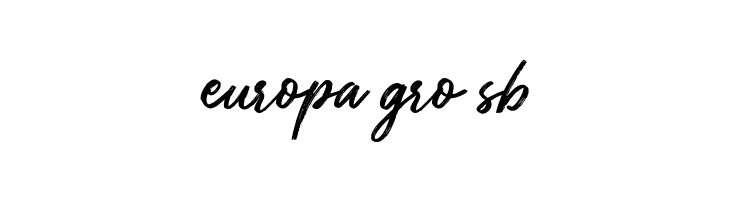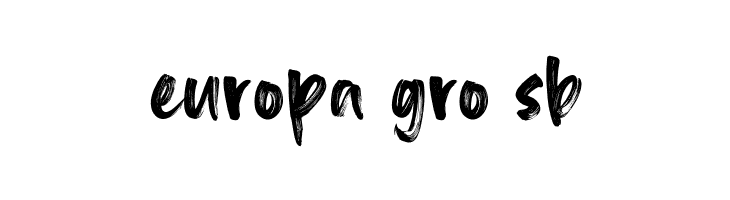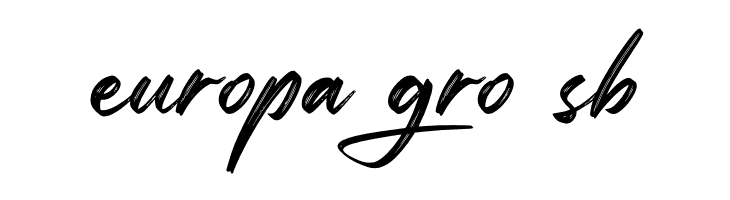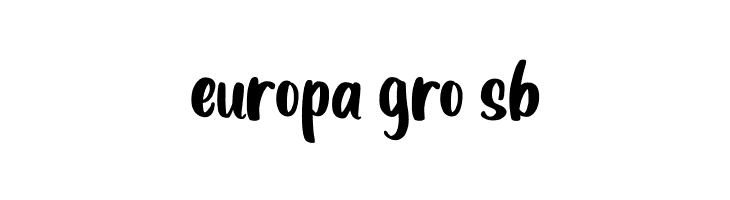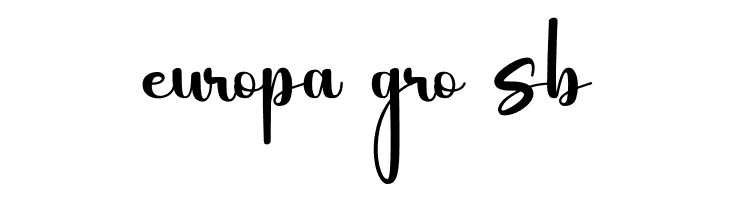
( Måns Grebäck - www.mansgreback.com )
A tall, slender script font with a modern, handwritten style.
( Måns Grebäck - www.mansgreback.com )
A dynamic handwritten font with elongated, slanted characters.
( Qkila - Quentin Aquila - www.creativefabrica.com/designer/qkila/ )
A playful, casual script font with smooth, flowing curves and a handwritten feel.
( StudioAKTYPE - Jani Nurman - www.creativefabrica.com/designer/studioaktype/ )
An elegant, flowing script font with ornate, cursive letterforms.
( Tama Putra - be.net/tmptr )
An elegant script font with flowing, cursive letterforms and decorative flourishes.
( Tama Putra - be.net/tmptr )
A dynamic, brush-style script font with expressive, hand-drawn strokes.
( Tama Putra - be.net/tmptr )
A dynamic and flowing script font with elegant, cursive letterforms.
( Tama Putra - be.net/tmptr )
An elegant, cursive script font with flowing, ornate characters.
( Ydhra Studio - creativemarket.com/ydhra )
An elegant, flowing script font with ornate uppercase and smooth lowercase letters.
( Zero Thompson - www.facebook.com/Zerografics )
A casual, handwritten font with smooth, fluid strokes and a personal touch.
( dcoxy - Greg Medina - www.dcoxy.com/ )
A playful, bold, hand-drawn font with a whimsical style.
( dcoxy - Greg Medina - www.dcoxy.com/ )
A dynamic, slanted handwritten font with a modern, energetic style.
( dcoxy - Greg Medina - www.dcoxy.com/ )
An elegant, flowing script font with thin, elongated letterforms and graceful curves.
( dcoxy - Greg Medina - www.dcoxy.com/ )
A dynamic and flowing script font with elegant cursive letterforms.
( dcoxy - Greg Medina - www.dcoxy.com/ )
A dynamic, brush-style font with an energetic, handwritten feel.
( dcoxy - Greg Medina - www.dcoxy.com/ )
A bold, brush-style font with dynamic, hand-drawn strokes.
( dcoxy - Greg Medina - www.dcoxy.com/ )
A bold, elegant script font with smooth curves and dramatic swashes.
( Billy Argel - billyargel.com/ )
A bold, decorative script font with flowing, cursive design.
( Billy Argel - billyargel.com/ )
A dynamic, cursive script font with elegant curves and calligraphic style.
( Fonts A Go-Go - www.postmodernvillage.com/fonts.html )
A casual, handwritten font with an authentic, personal touch.
( Ian Howe )
A casual, handwritten font with fluid strokes and a personal touch.
A bold, dynamic script font with interconnected, flowing letters and a modern, playful style.
A bold, elegant script font with flowing, cursive letters and ornate uppercase characters.
An elegant script font with flowing, cursive strokes and decorative flourishes.
A cursive, handwritten-style font with elegant, flowing lines.
A bold, flowing script font with high contrast and elegant curves.
A bold, cursive script font with elegant, flowing characters.